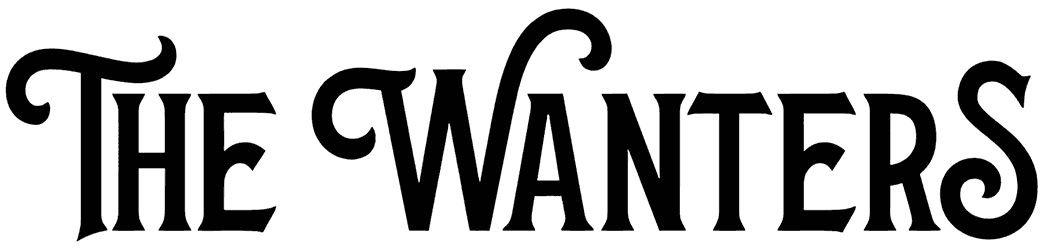
The Wanters Font
If you have been looking for an ideal font to design posters, logos, menus, and flyers, a retro font like The Wanters would meet your needs. The edges of its letters are stretched and rounded, so it can easily attract th…
If you have been looking for an ideal font to design posters, logos, menus, and flyers, a retro font like The Wanters would meet your needs. The edges of its letters are stretched and rounded, so it can easily attract the audience’s attention. Although this font does not support lowercase letters, it offers two versions of uppercase letters to convey a classic and vintage feeling.